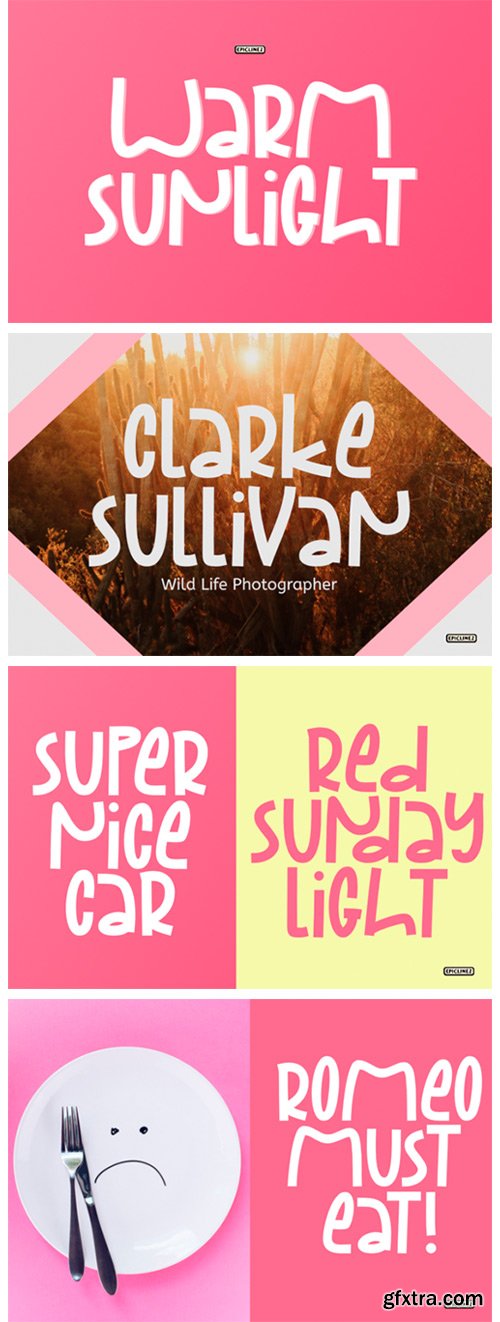
Warm Sunlight Font
Warm Sunlight embodies fun, quirkiness, and playfulness. This enchanting display font will turn any creative idea into a true standout.